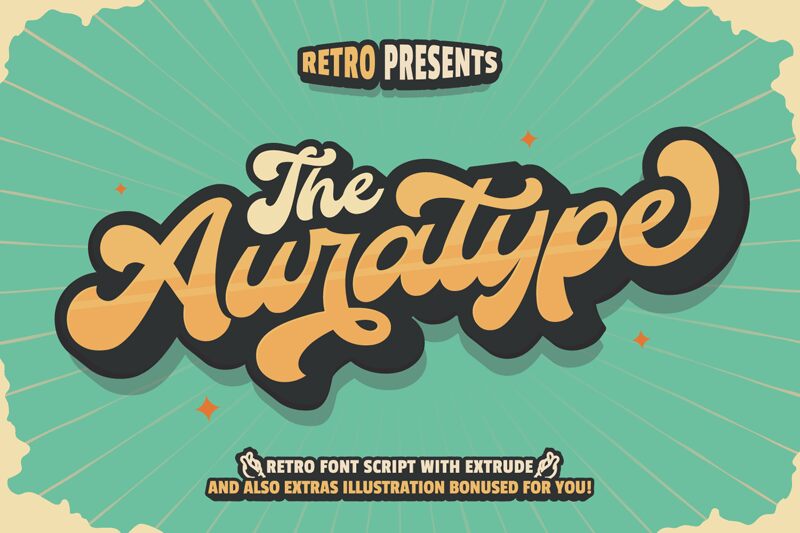
The Auratype DEMO Regular
The Auratype is a bold retro script font designed by Wahyu Dwi Cahyo | Auratype Font Foundry. Its smooth and vintage curves create an eye-catching design that looks great in any project. From logos to posters and printed products, The Auratype offers a unique look that stands out from the crowd. It's also perfect for creating vintage-style designs such as t-shirts, mugs, greeting cards and more!